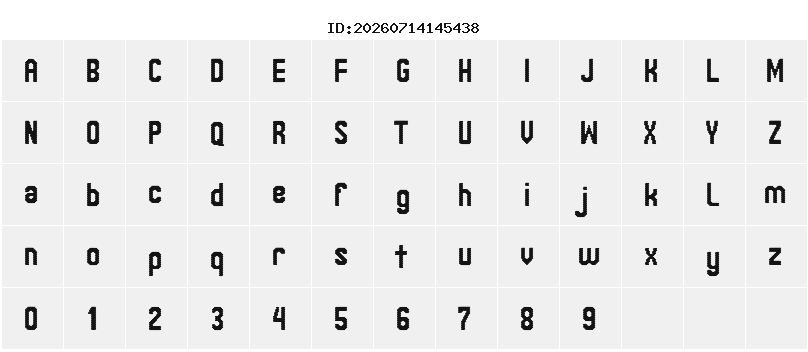
Janinos juosta Preview
• Font Name: Janinos juosta
• Full Font Name: Janinos juosta
• Designer: Gabrieliusmackevičius
• Description: šriftas, nulipęs nuo tautinės juostos, savyje talpina lietuvišką abėcėlę, keletą ligatūrų ir dekoratyvinių raštų. jei turi ką apie tai pasakyti: labas@mono.lt
Janinos juosta.ttf is a modern, elegant sans-serif font designed for ultimate readability and visual harmony. Perfect for branding, headlines, web design, and print materials.